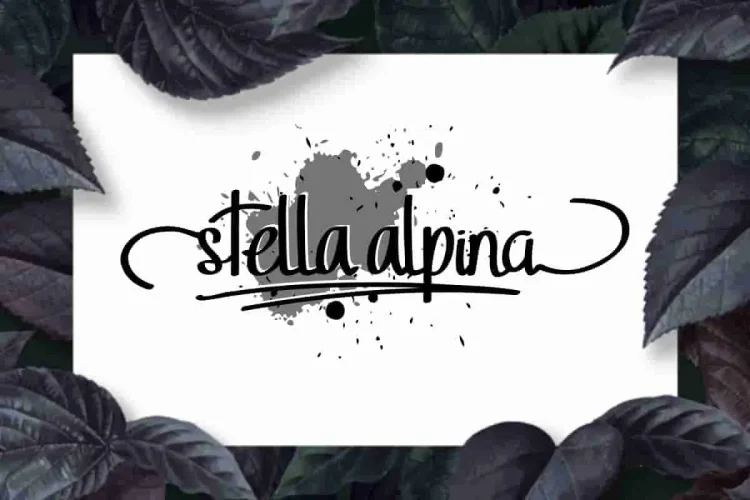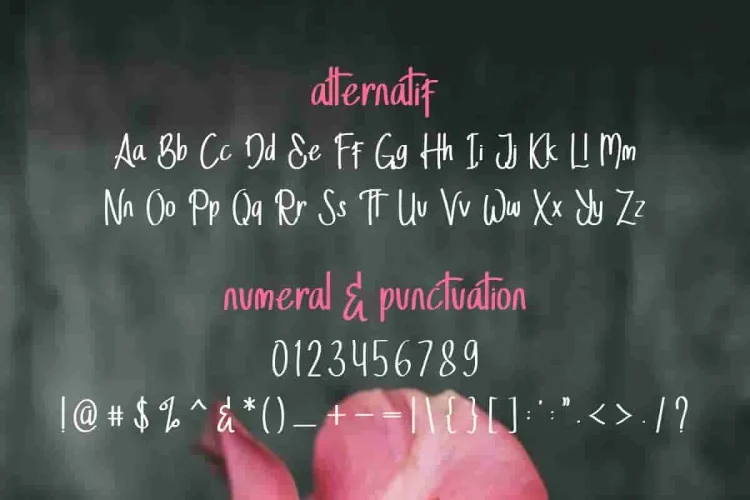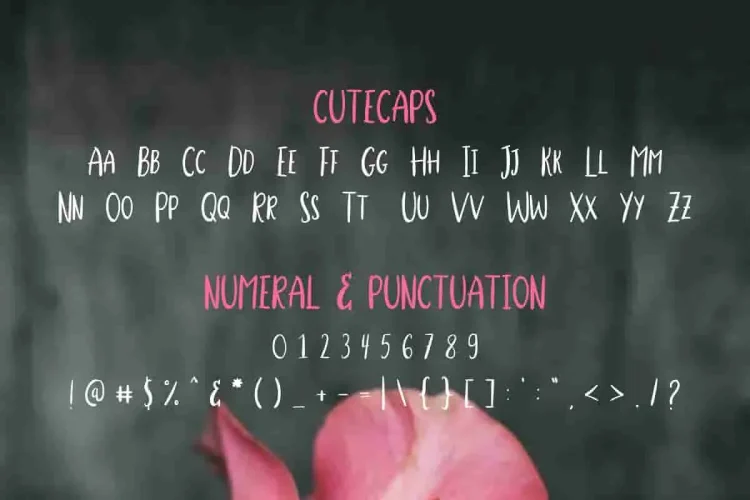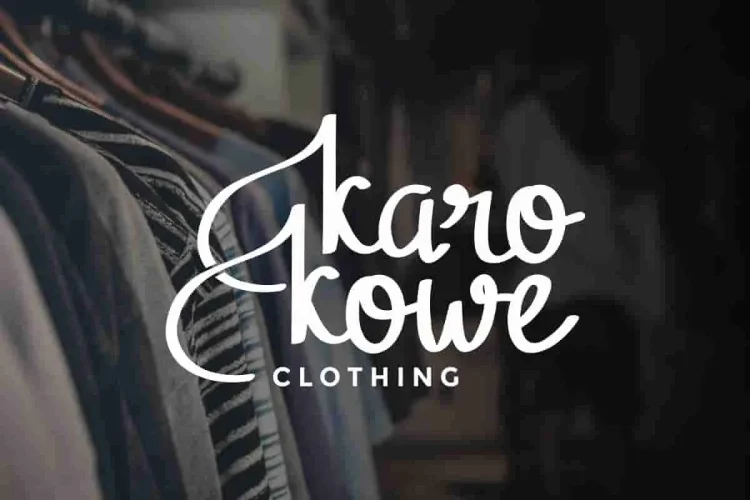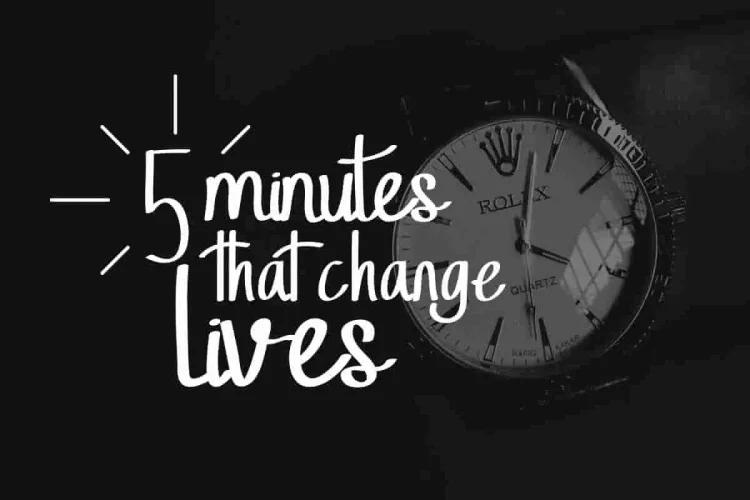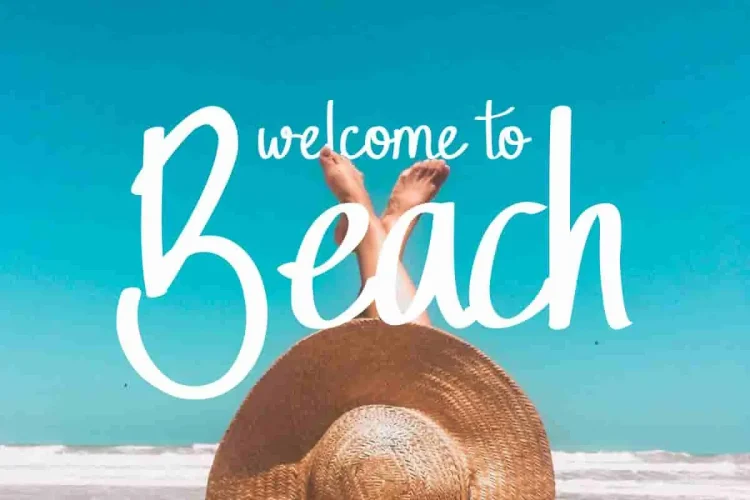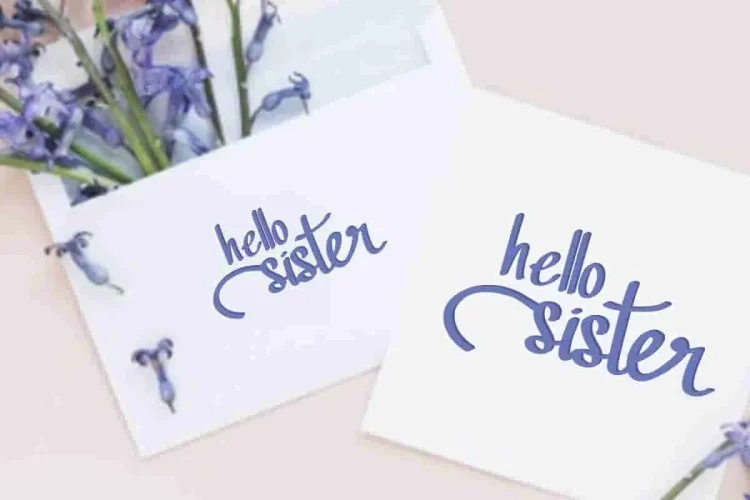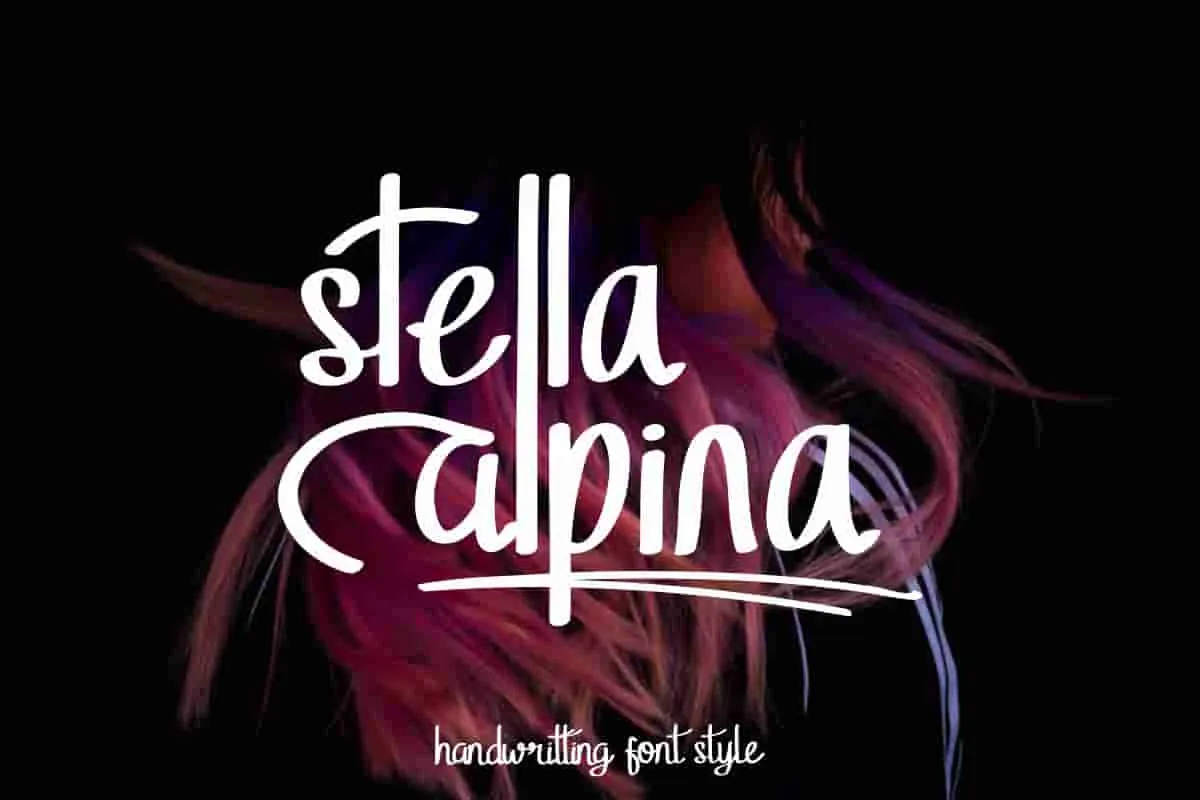
StellaAlpina Graffiti Hand-drawing Font TRIO
Hello Guys! Introducing Stella Alpina.
This is our newest font collection, it’s a Graffiti Hand-drawing Font. It has THREE different styles with unlimited possibilities to make:
• Regular: A beautiful signature script font with an elegant and natural handwriting feel. Perfect for branding, logos, and personal signatures.
• ALT (Alternate): an alternate version of the signature script, giving you even more flexibility and uniqueness in your design compositions.
• CuteCaps: A charming all-caps display font with a playful and youthful vibe, ideal for packaging, quotes, and fun design projects.
This is a sophisticated styling font which will be perfect for branding, logo, photography and signature. It is so elegant, classy, strong and beautiful.
What makes StellaAlpina even more special is its rich support for numerals and punctuation, ensuring your designs are polished and professional no matter the context. This trio provides not just aesthetic value, but also functionality—perfect for both personal and commercial use.
• Three-in-One Font Family – Regular, CuteCaps, and Alternatif styles included
• Authentic Handwritten Feel – Perfectly mimics elegant penmanship
• Versatile Use – Ideal for weddings, logos, quotes, and stationery
• Complete Glyph Set – Includes numerals and punctuation
• Modern Script Aesthetic – Feminine, warm, and highly legible